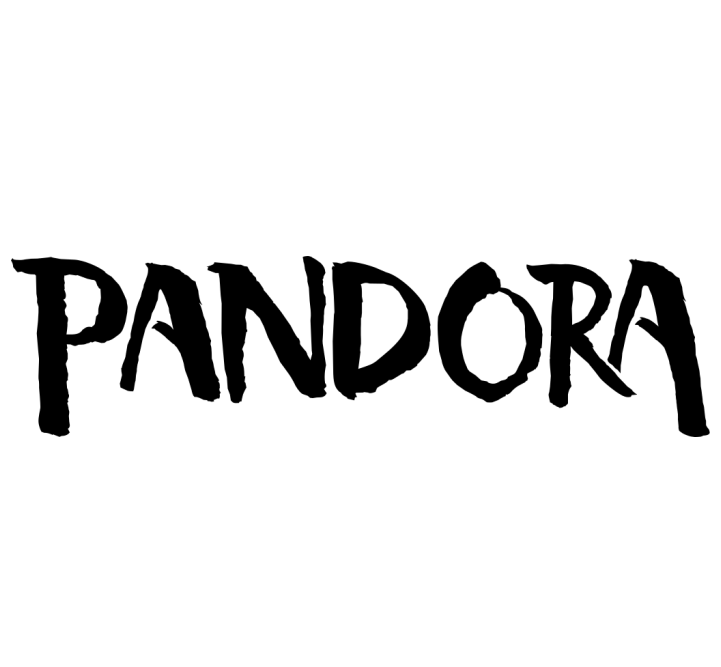
Pandora The World of Avatar Font
EntertainmentPandora – The World of Avatar is a themed land based on the movie "Avatar," located in Disney's Animal Kingdom park. Visitors can experience a bioluminescent forest, soar on the back of a banshee, and embark on a journey through Pandora's floating mountains.
The Pandora logo was likely created using the Carumba font. Designed by California-based artist Jill Bell, the playful brush script adds a lively and festive vibe to the logo. You can find more details about the font here.